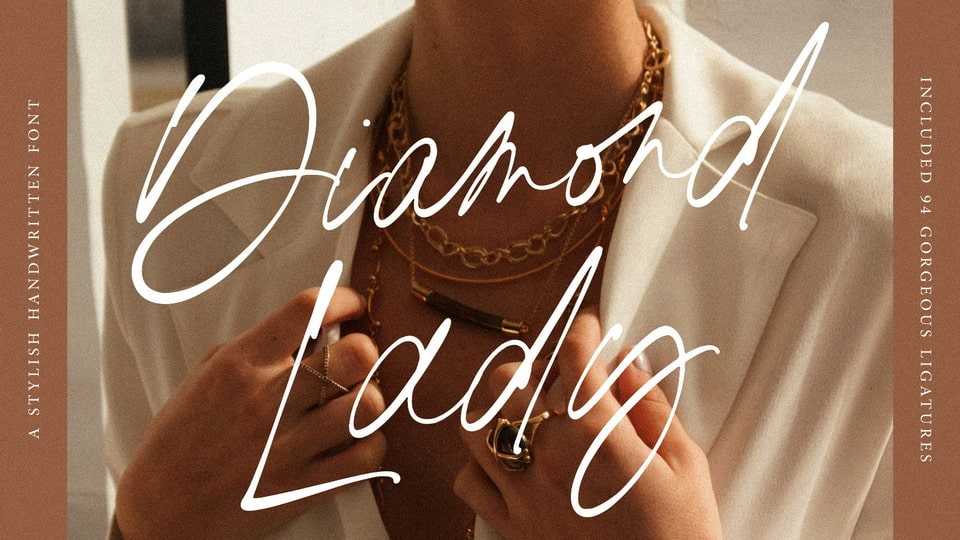
Download Diamond Lady font, a handwriting typeface with delicate curves and a unique blend of thick and thin lines. Diamond Lady font offers all the sophistication and beauty you could ask for in one package.
Designer: Redy Studio